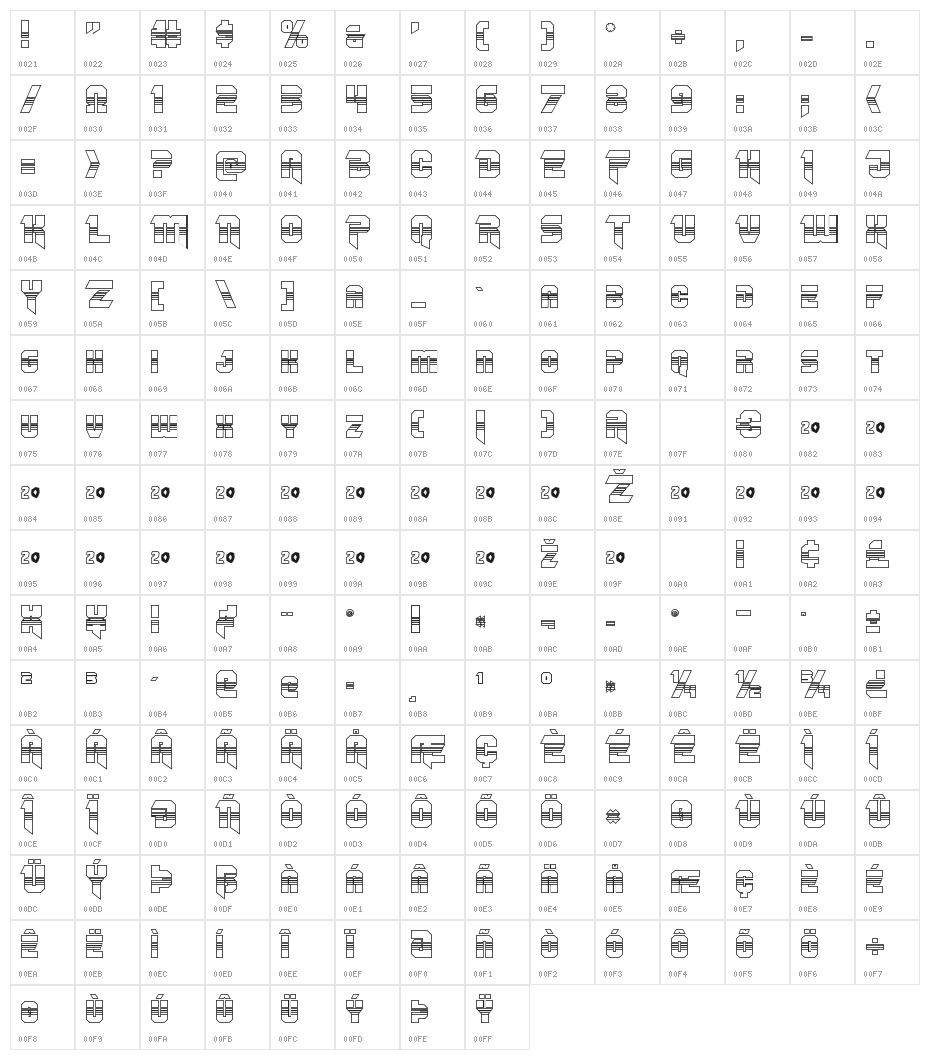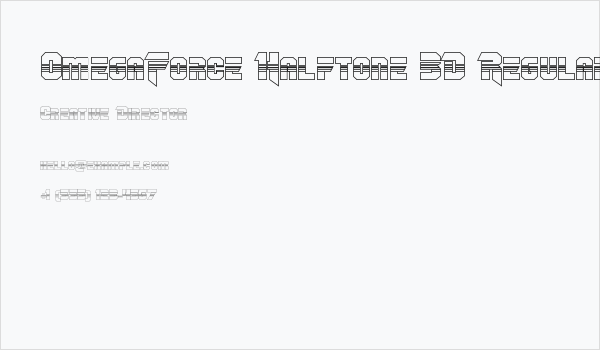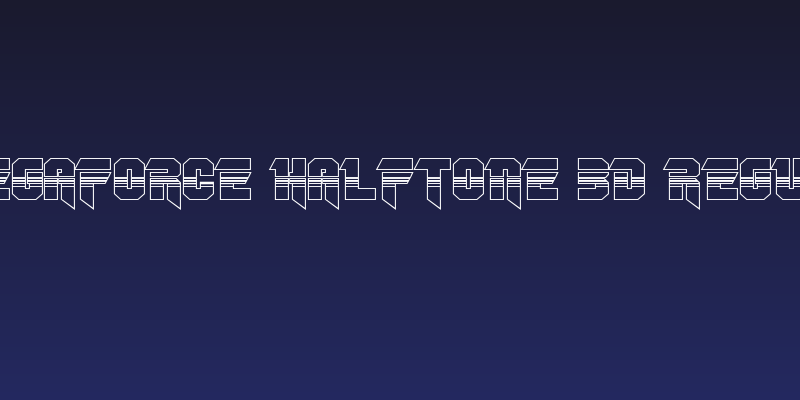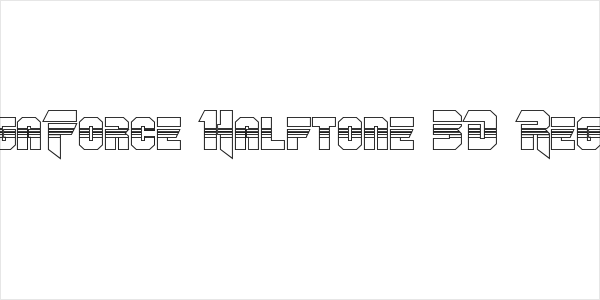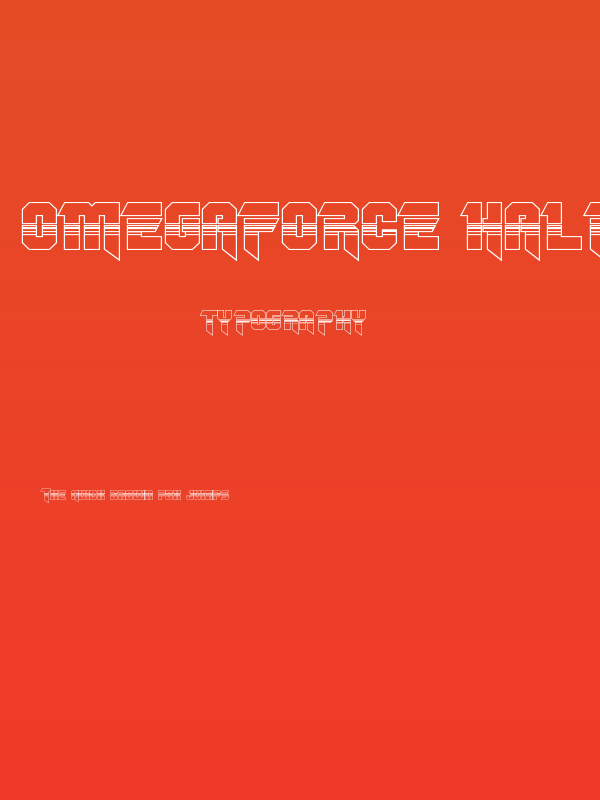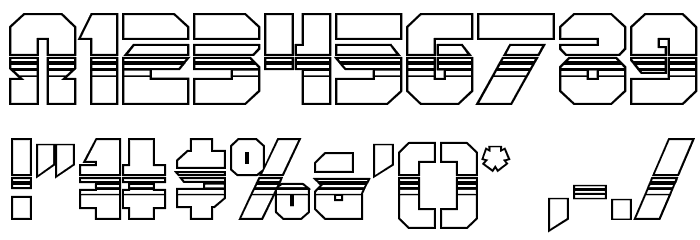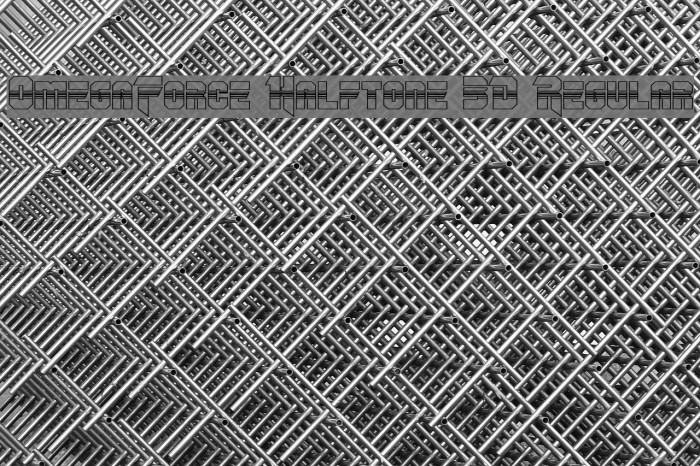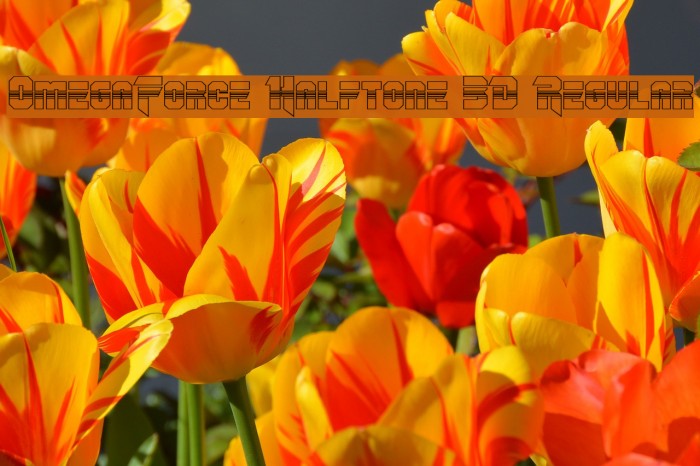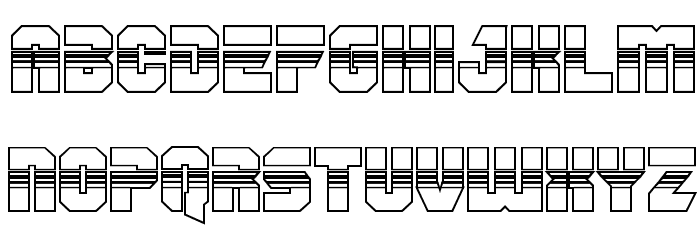
OmegaForce Halftone 3D Regular Font
OmegaForce Halftone 3D Regular Description
This font features a bold, geometric design with a distinct 3D halftone effect. The characters are constructed with sharp angles and straight lines, giving them a futuristic and industrial appearance. The use of parallel lines within each character adds depth and a sense of movement, enhancing the three-dimensional illusion. The uppercase and lowercase letters maintain a consistent style, while the numerals and special characters are designed to match the overall aesthetic. This font is eye-catching and ideal for projects that require a strong visual impact.
| Overall Style | Futuristic, Industrial |
| Proposed Projects | Ideal for video game titles, sci-fi movie posters, tech branding, and futuristic event flyers. |